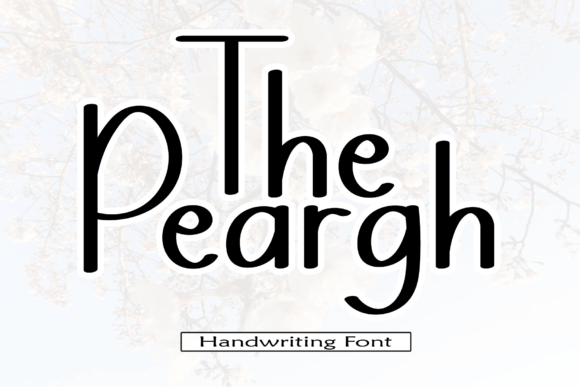
Introducing The Peargh Font: Embark on a Typographic Adventure into Elegance and Style
Immerse yourself in the enchanting world of The Peargh Font, a captivating script font that exudes elegance and sophistication. Designed by the renowned RR Studio, this font is an artistic masterpiece that transforms your creative visions into stunning realities. Crafted to perfection, The Peargh Font effortlessly blends exquisite aesthetics with exceptional functionality, making it an indispensable tool for discerning designers and typography enthusiasts.
Unleash Your Creativity with Boundless��能性
The Peargh Font opens up a universe of creative possibilities. With its graceful curves, delicate strokes, and captivating swashes, this font adds an aura of refinement to any project. Whether you're designing wedding invitations, thank-you cards, heartfelt quotes, or striking logos, The Peargh Font elevates your designs to new heights of elegance. Its versatility extends to business cards, greeting cards, and any endeavor that calls for a touch of handwritten artistry.
Immerse Yourself in the Beauty of Handwritten Elegance
The Peargh Font captures the essence of handwritten beauty, evoking a sense of intimacy and personal connection. Its flowing lines and impeccable details create a visual masterpiece that captivates audiences. Whether you're crafting heartfelt messages, designing enchanting invitations, or creating captivating branding materials, The Peargh Font adds a touch of magic that leaves a lasting impression.
Elevate Your Designs to New Heights of Distinction
With The Peargh Font as your creative ally, you'll elevate your designs to new heights of distinction. Its timeless appeal and effortless charm add an air of sophistication to any project. Whether you're a seasoned designer or just starting your creative journey, The Peargh Font empowers you to create designs that resonate with audiences and leave an indelible mark.
Craft Timeless Designs that Speak to the Heart
The Peargh Font is more than just a font; it's an artistic expression that transcends time. Its enduring beauty and universal appeal ensure that your designs will remain relevant and captivating for years to come. Trust The Peargh Font to convey your messages with elegance, charm, and a touch of timeless grace.